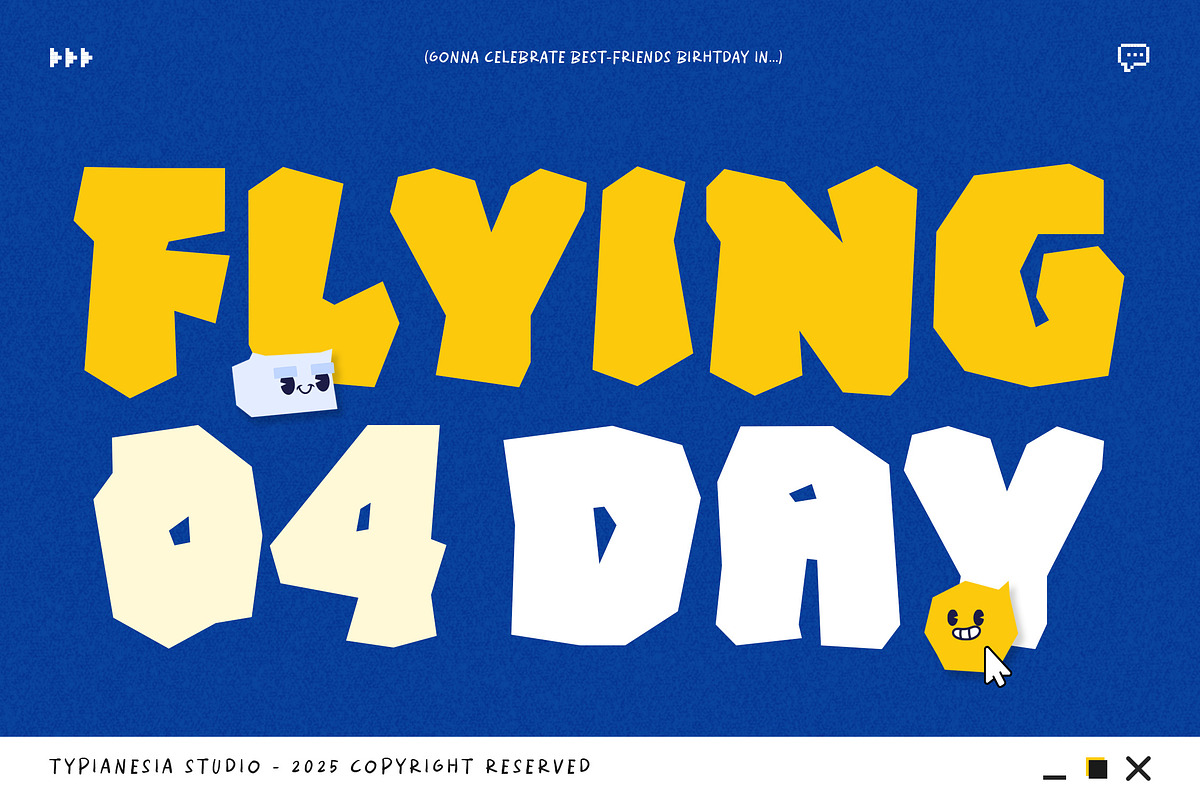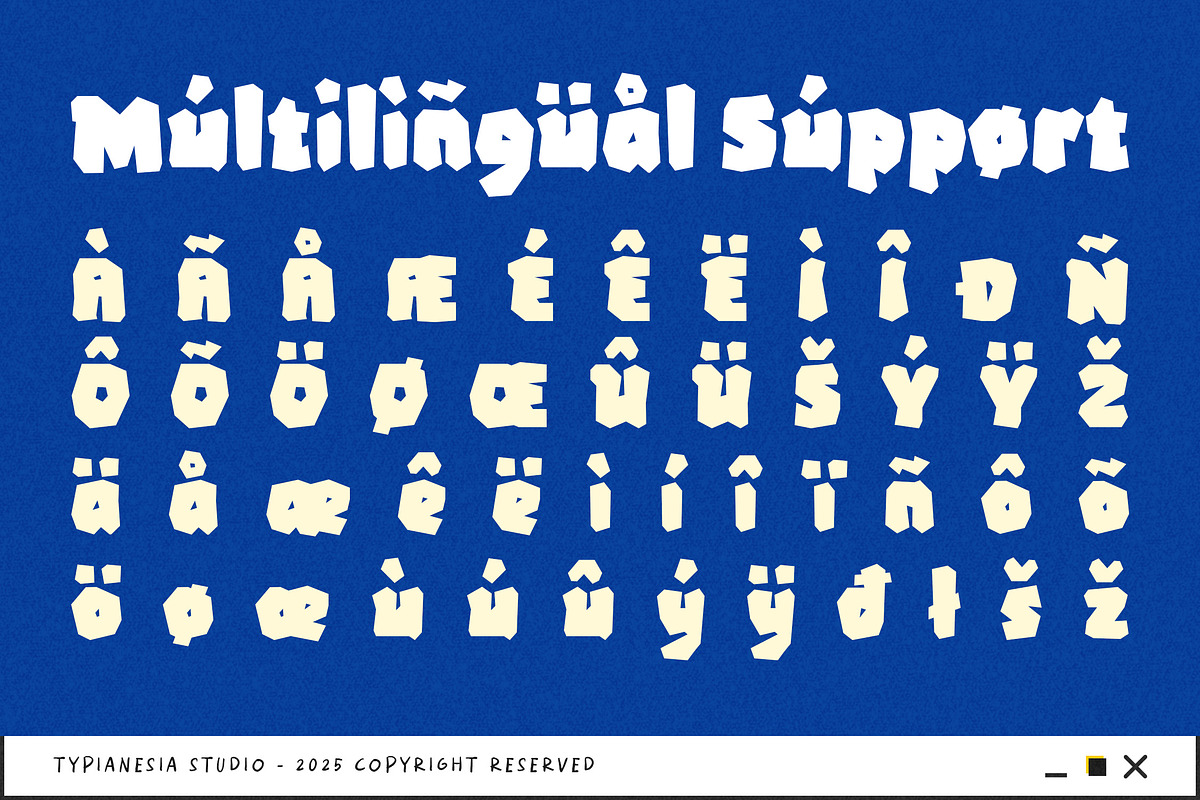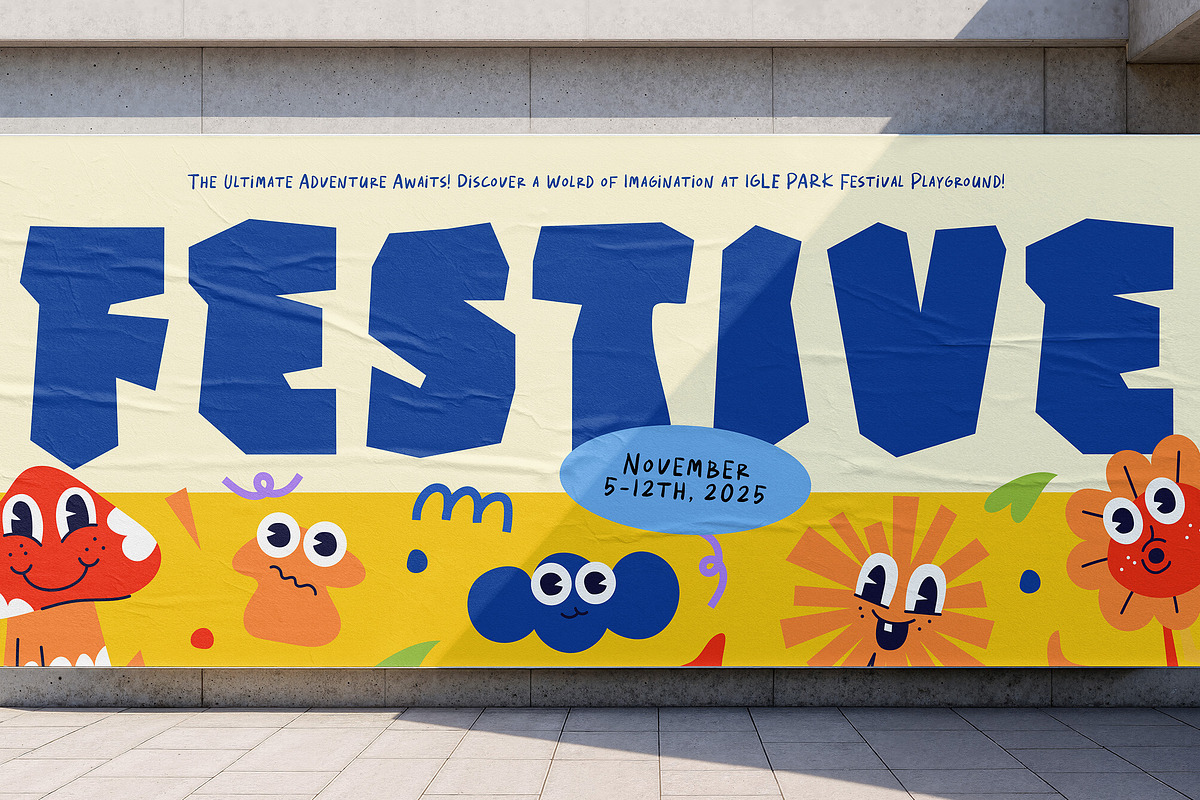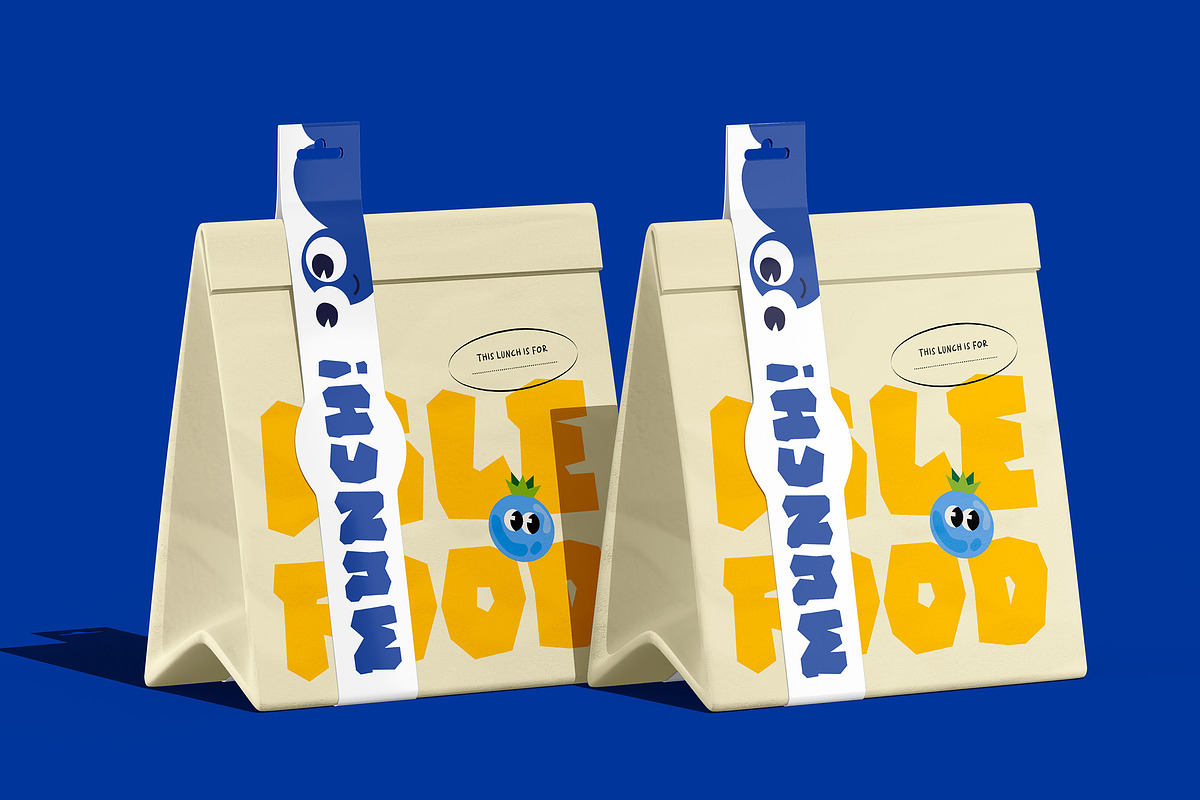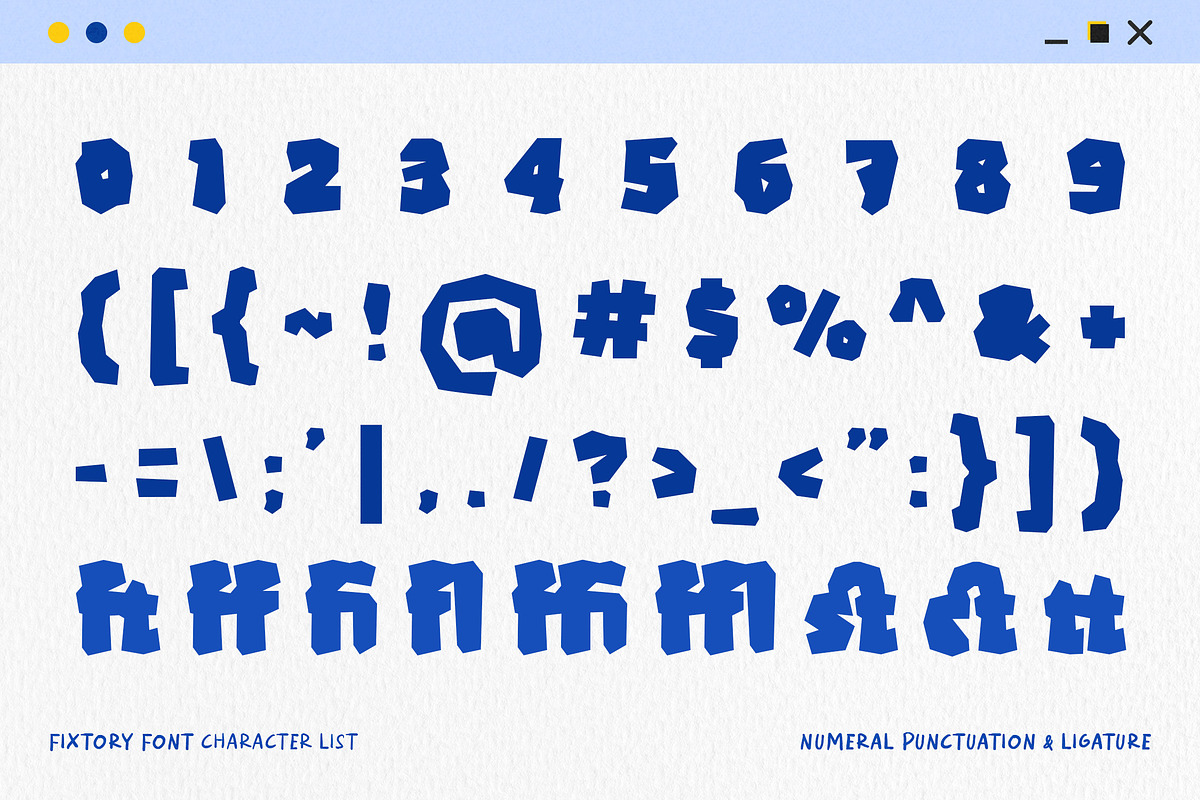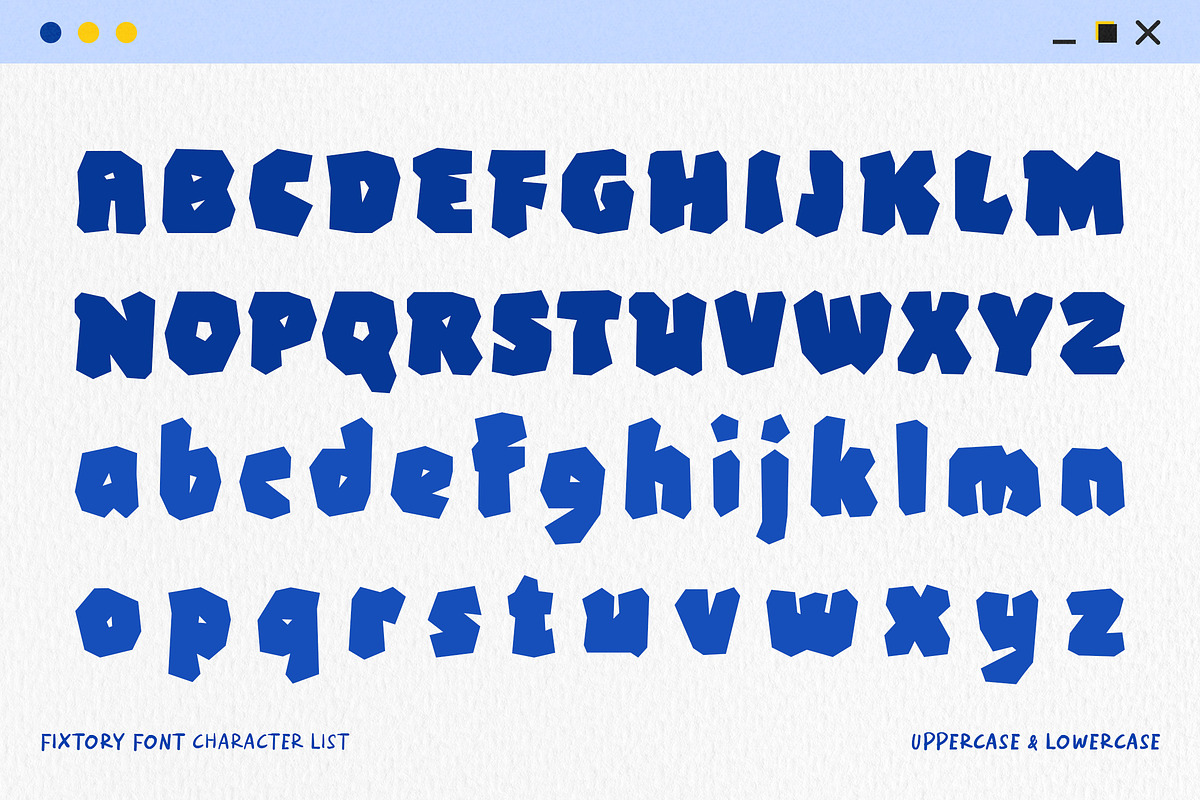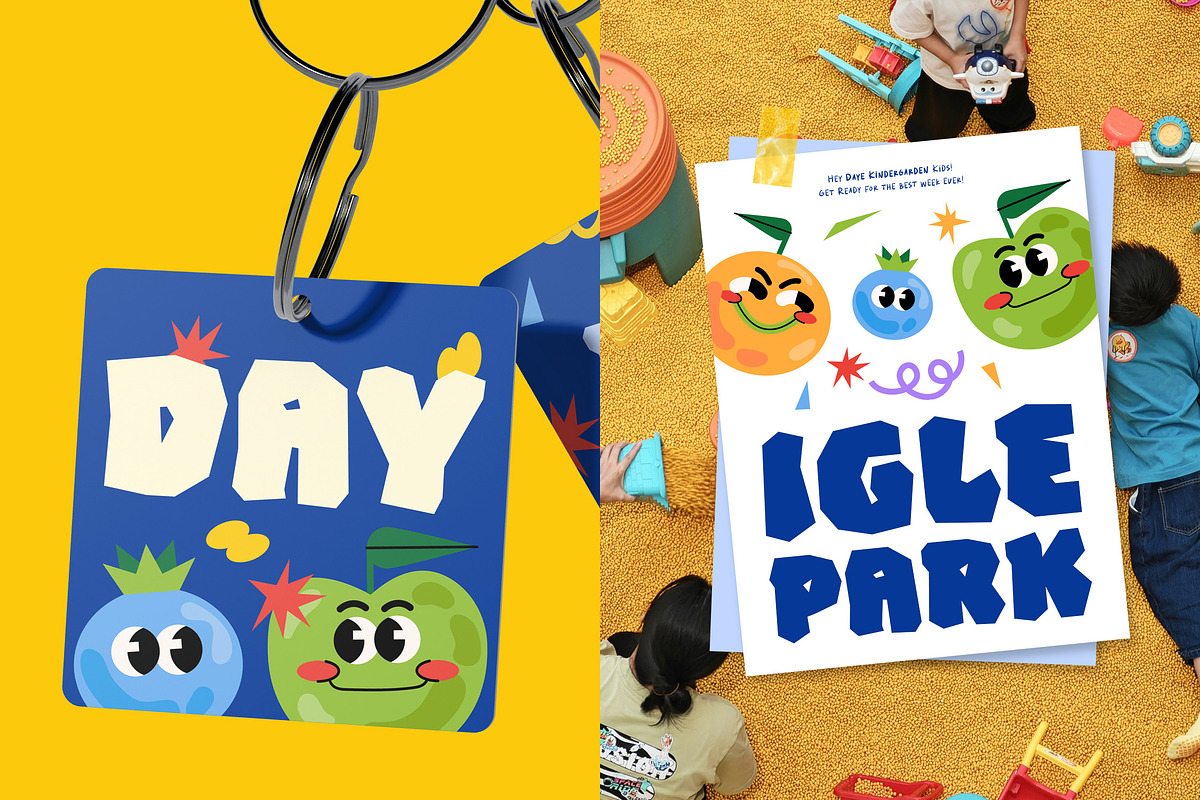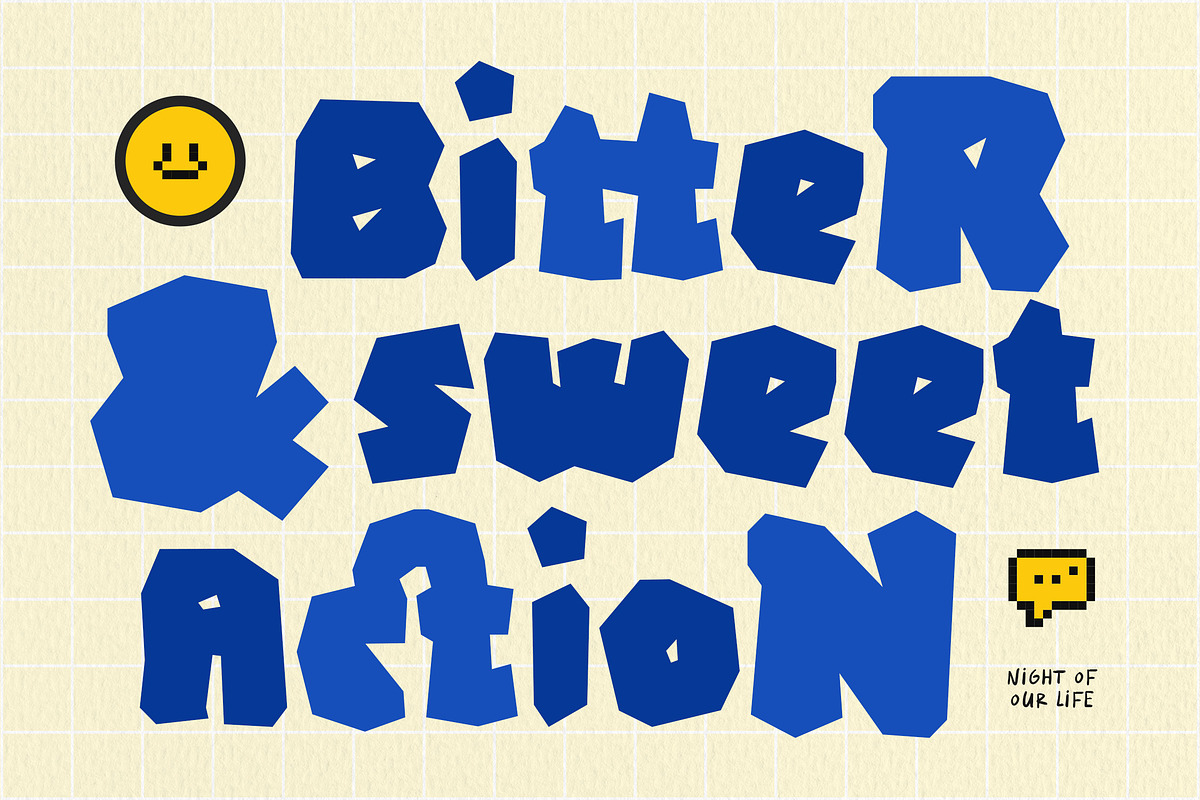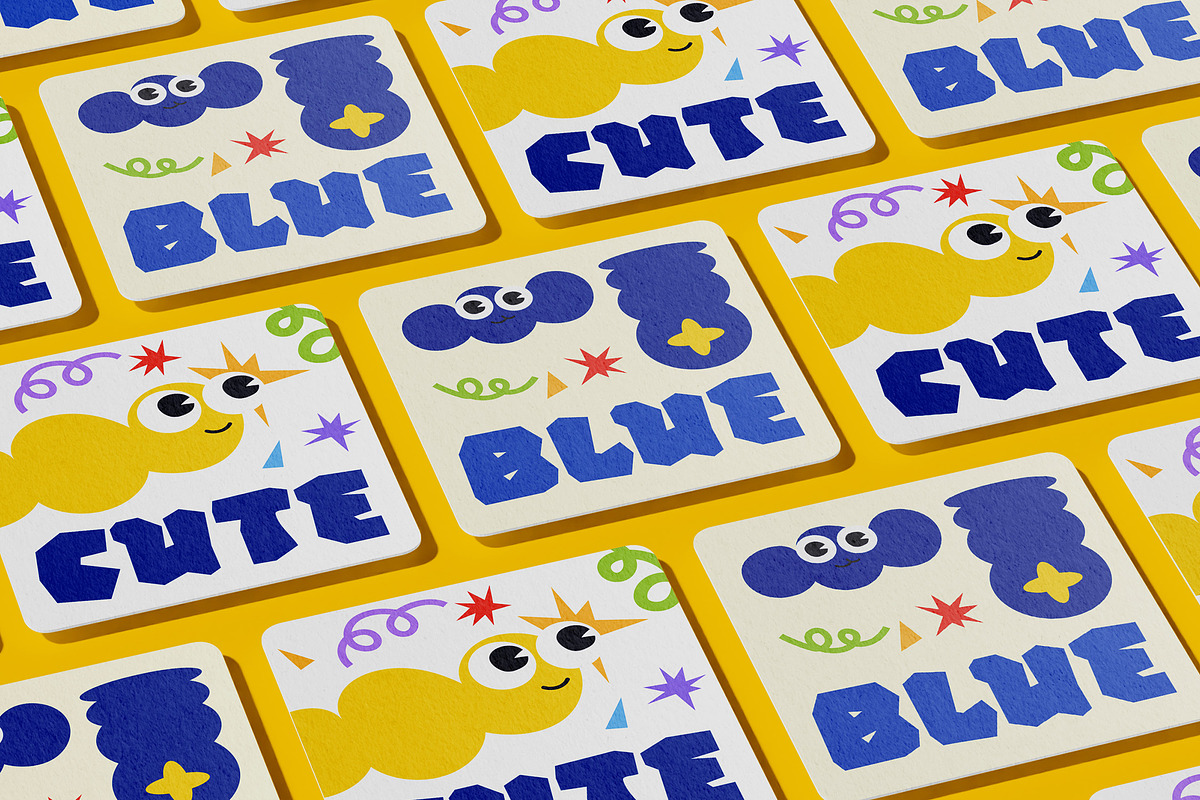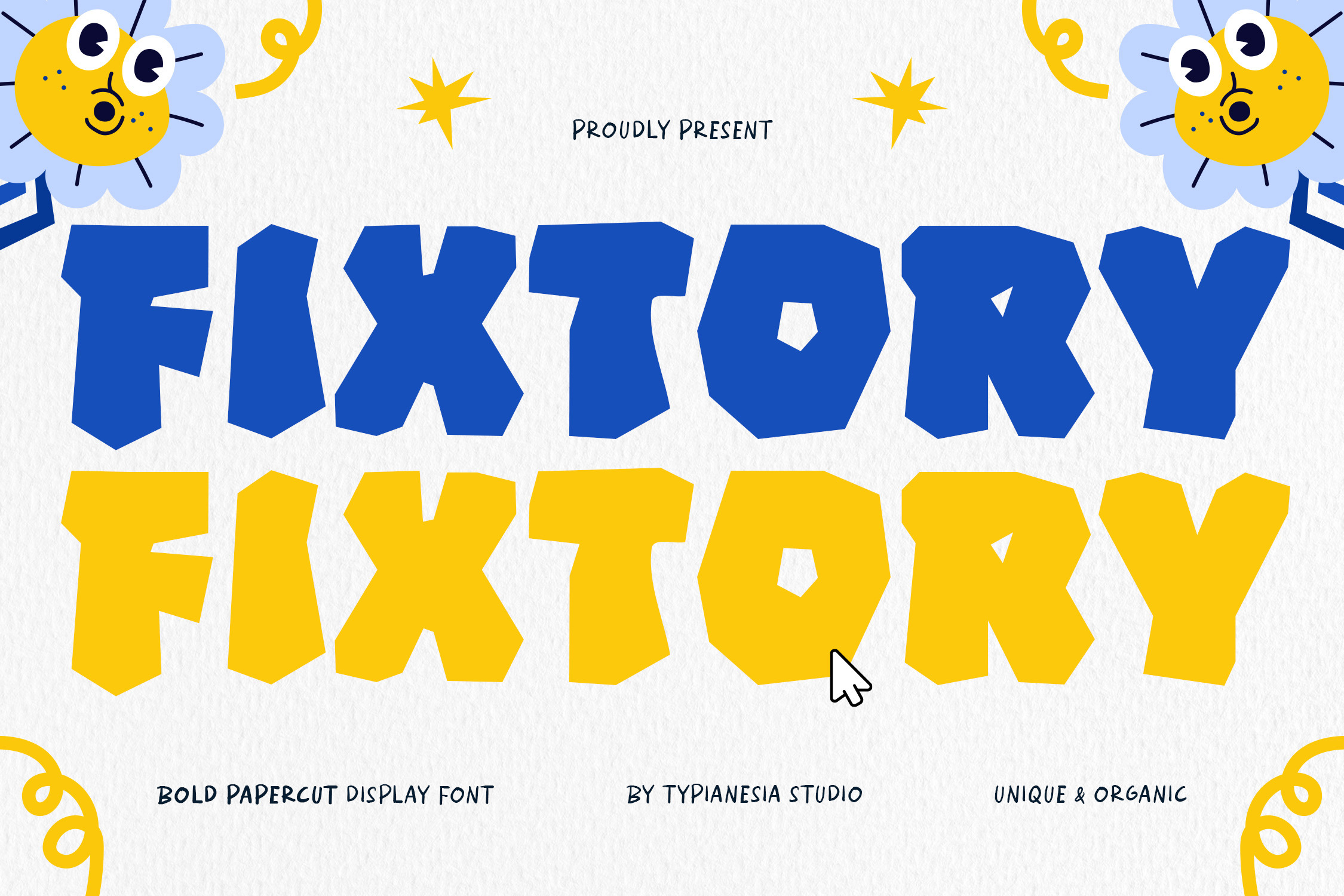
Fixtory - Bold Papercut Game Font
Fixtory - Bold Papercut / Paper Cutout Game Font - Modern Fun & Playful Cartoon Display Font
Fixtory is a Playful and Bold Display Font that captures the charm of handmade Paper Cutout art. This font is designed to instantly engage young audiences, making it the ultimate choice for Kid branding, Game interfaces, especially for retro or Arcade themes, as well as captivating children's Book covers and illustrations, the friendly and distinctive shape of Fixtory makes for a memorable Logo, Wordmark, and striking branding for fun-loving businesses like a Bakery, Coffee shop, or Cafe, the Chunky weight ensures maximum impact, perfect for Cartoon titles, headers for Toys packaging, vibrant promotional materials and anyprojects that required bringing a fun and DIY Feel. Comes with complete set of uppercase and lowercase letters, numerals, punctuation, and a variety of useful ligatures. It also features extensive Multilingual Support, allowing your playful design to reach a global audience.